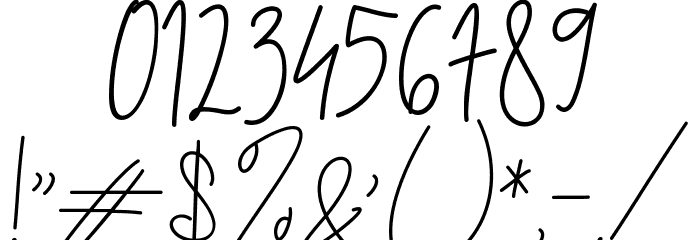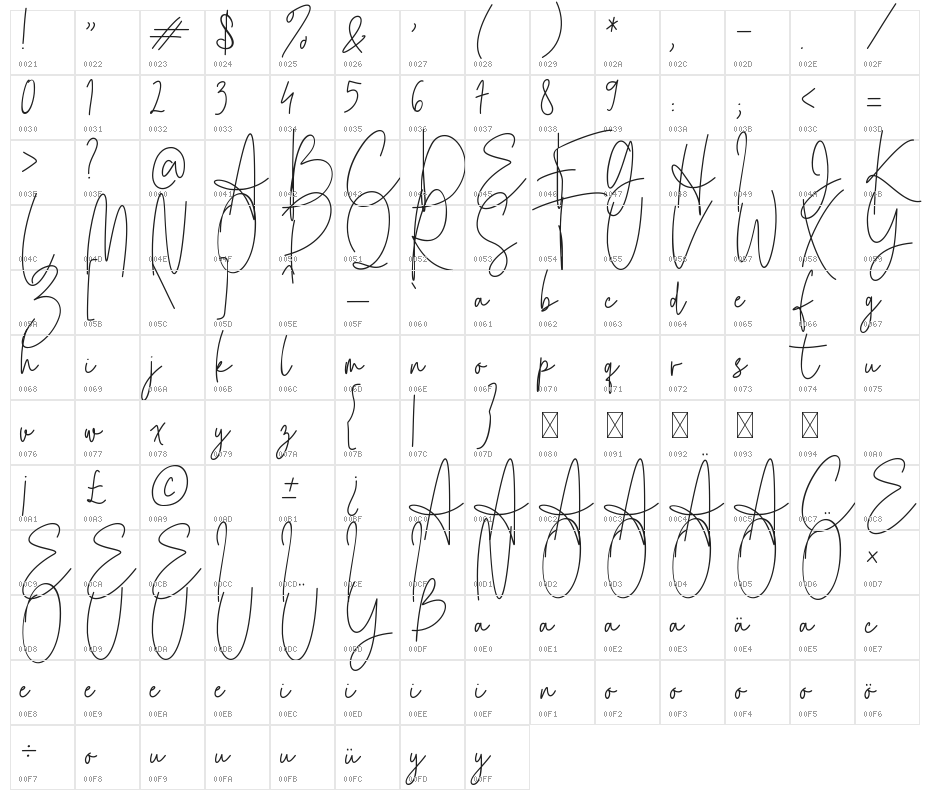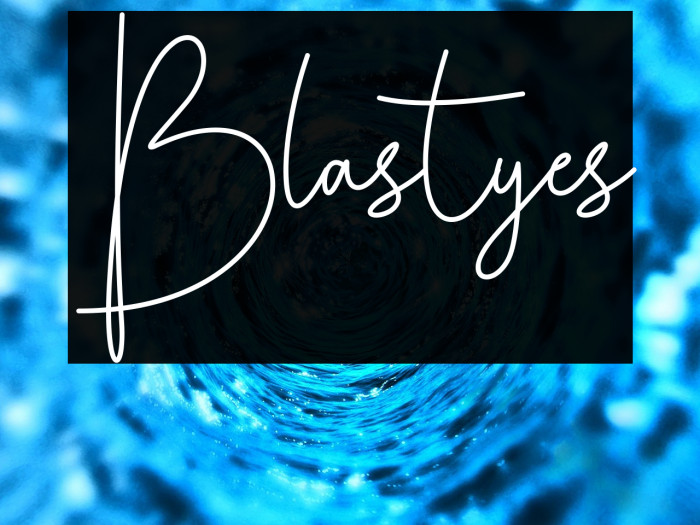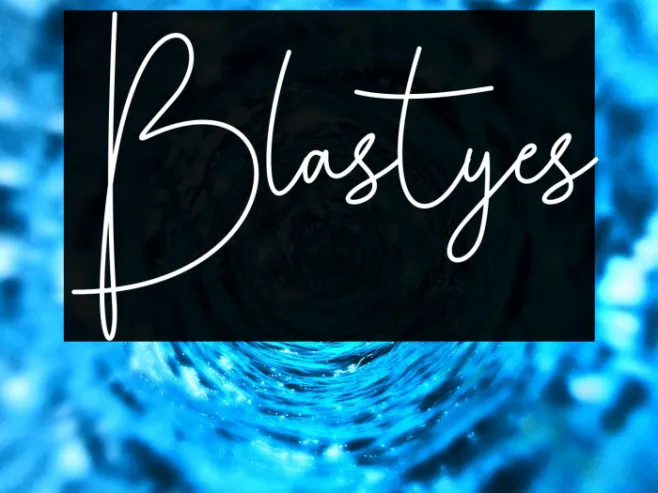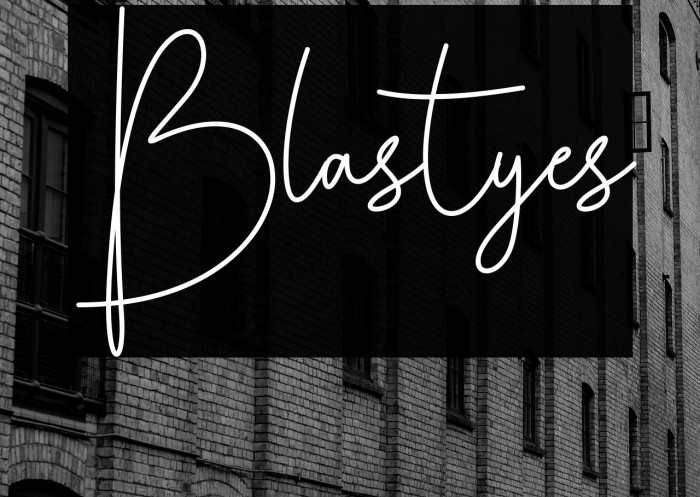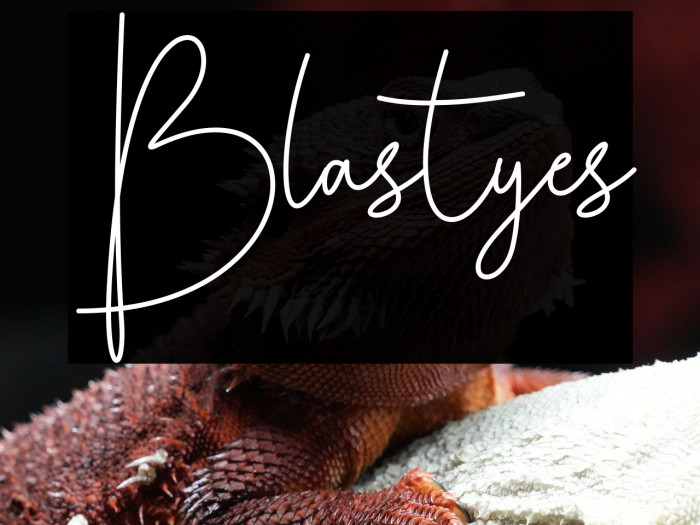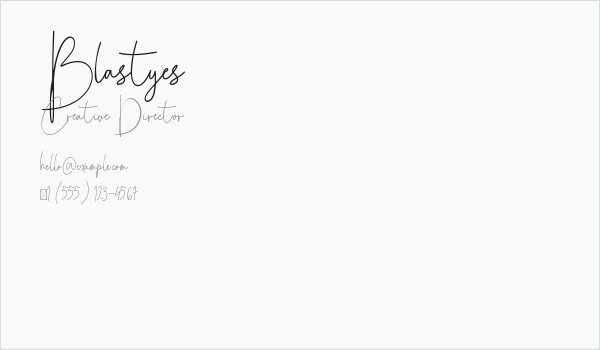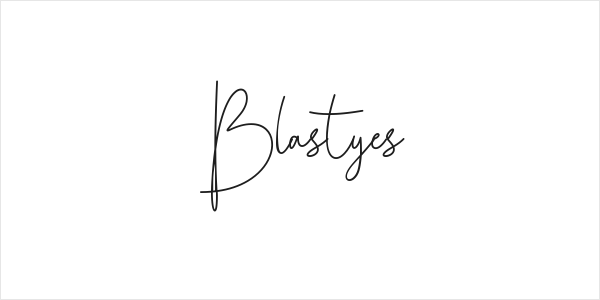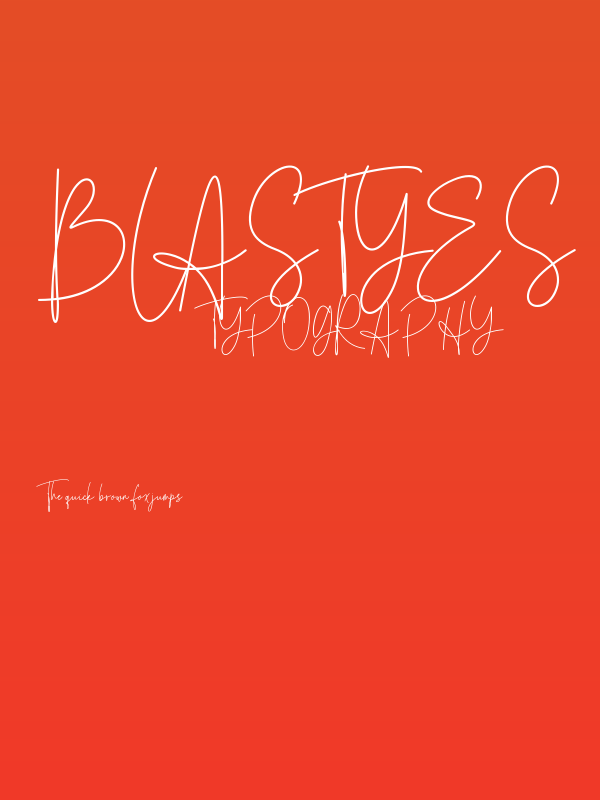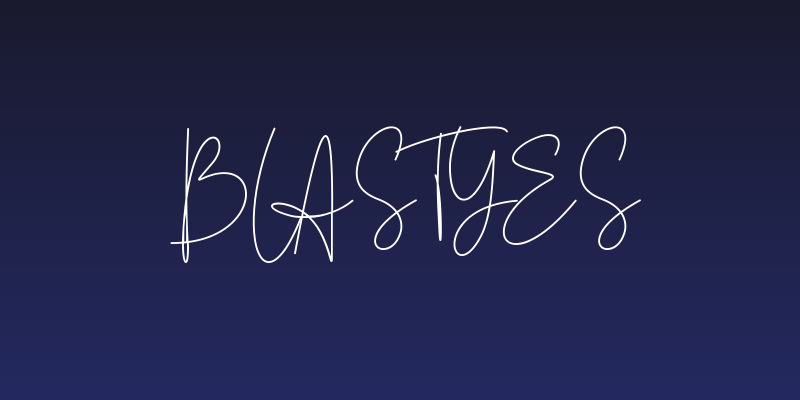
Blastyes Font
Blastyes Description
This font features a dynamic and expressive handwritten style, characterized by its loose and flowing strokes. The uppercase letters are tall and narrow, with a playful, almost whimsical quality. The lowercase letters maintain a consistent flow, with some letters connecting in a cursive manner. The numerals are clear and legible, matching the overall casual aesthetic. Special characters are integrated seamlessly, adding to the font's versatility. This font exudes a sense of spontaneity and creativity, making it ideal for projects that require a personal touch.
| Overall Style | Casual, Creative |
| Use Case | Logos, Invitations, Social Media Graphics |
| Proposed Projects | Ideal for personal branding, creative projects, invitations, and social media graphics. |